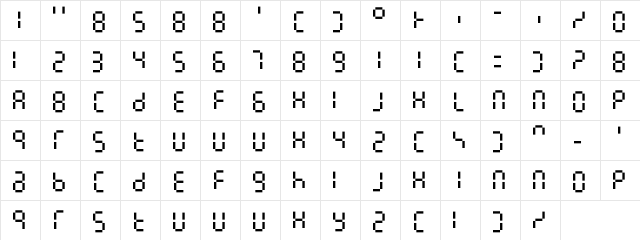
Complete 7LineDigital Regular glyph index. Displaying only characters natively supported by 7LineDigital Regular font.
7LineDigital has a distinctly futuristic character, with geometric precision and clean angles that feel at home in technology, gaming, and sci-fi contexts.